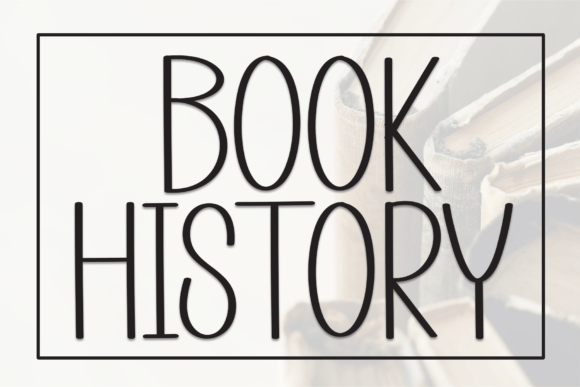
The Quest for the Perfect Font: Discovering Book History
I’ll never forget the time I was working on a project for a client who wanted a custom branding package. I had spent hours scouring the internet for the perfect font, but nothing seemed quite right. That was until I stumbled upon Book History, a sweet and friendly handwritten font that stole my heart. Its natural and unique style made it incredibly fitting to a large pool of designs, and I knew I had found what I was looking for. The only limit was my imagination!
A Personal Review of Book History
So, what makes Book History so special? Let’s dive into the good stuff! 😊
- ✨ Unique and quirky personality: Book History has a one-of-a-kind charm that sets it apart from other fonts.
- ✅ Highly versatile: Whether you’re designing a logo, creating a social media graphic, or crafting a handmade card, Book History fits in seamlessly.
- 💕 Easy on the eyes: This font is a joy to read, with a gentle flow that makes it perfect for longer texts.
Of course, no font is perfect, and Book History has a few small quirks to keep in mind:
- 🤔 Limited character set: While Book History has a wide range of characters, it’s not a full-featured font with every possible glyph.
- ⚠️ May not be suitable for very small text: Due to its handwritten nature, Book History can be a bit tricky to read in very small sizes.
The Story Behind Book History
While the origins of Book History may be shrouded in mystery, it’s easy to imagine a designer pouring their heart and soul into creating this beautiful font. Perhaps they were inspired by vintage books, handwritten letters, or the imperfections of analog typography. Whatever the story, Book History is a true gem.
| Is Book History suitable for body text? | While Book History is a beautiful font, it’s best used for headings, titles, or short paragraphs. For longer texts, a more traditional serif font might be more readable. |